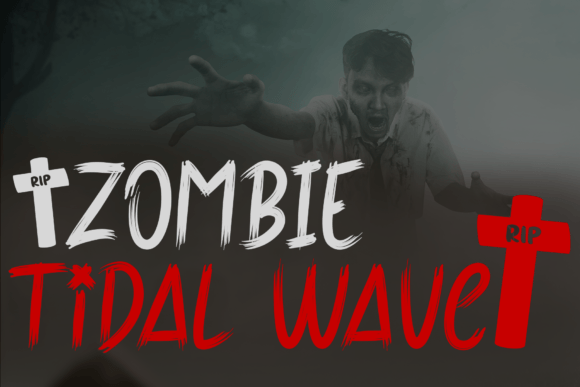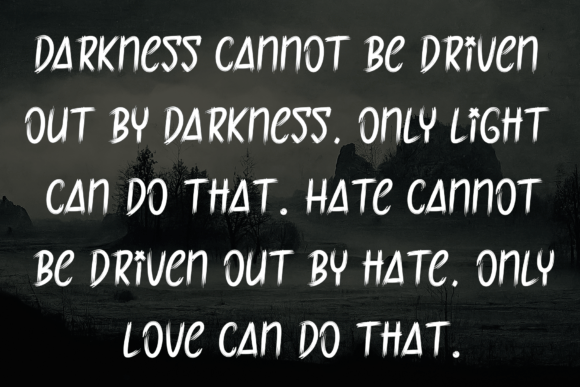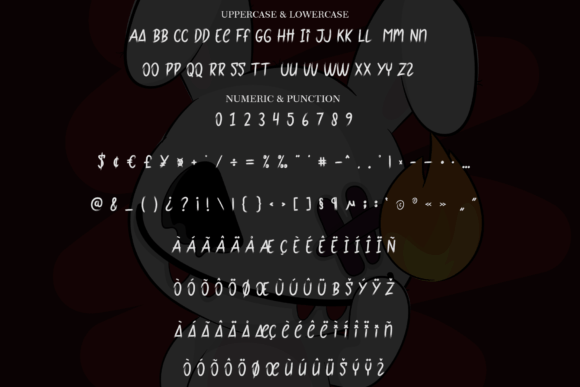
The Birth of a Spine-Chilling Font: Death Rabbit Font
As a designer, I’ve had my fair share of late nights spent scrolling through font libraries, searching for that perfect typeface to bring a project to life. But one fateful evening, while working on a Halloween-themed design for a client, I stumbled upon a font that sent shivers down my spine – Death Rabbit Font. This chilling script font has since become my go-to for horror-inspired designs, gothic invitations, and eerie projects.
Unleashing the Macabre: First Impressions
Death Rabbit Font is a masterclass in embracing the darker side of design. Its twisted strokes and haunting curves evoke a sense of whimsical terror that’s perfect for the spookiest of seasons. Whether you’re creating a haunting logo, a creepy invitation, or a eerie poster, this font adds an unmistakable eerie touch to your creations.
An Honest Review: The Good and the Quirky
So, what makes Death Rabbit Font so special? Here are a few things I love about it:
- ✨ Unique character set: Each letter has a distinct, hand-crafted feel that sets it apart from more generic fonts.
- ✅ Excellent for horror-themed designs: The twisted strokes and haunting curves are perfect for creating eerie and unsettling designs.
- 💀 Gothic and whimsical: Death Rabbit Font strikes a perfect balance between dark and playful.
Of course, no font is perfect. Here are a few quirks to keep in mind:
- 🤔 Limited use outside of horror themes: While Death Rabbit Font is amazing for Halloween-themed designs, it might not be the best fit for more lighthearted projects.
- ⚠️ Some letters may require manual kerning: As with many script fonts, you might need to adjust the kerning to get the perfect spacing.
The Story Behind Death Rabbit Font
Legend has it that Death Rabbit Font was inspired by the macabre art of 19th-century illustrators. The font’s creator, a mysterious designer with a passion for the dark and unknown, poured their heart and soul into crafting a typeface that would evoke the eerie and whimsical. The result is a font that’s equal parts haunting and beautiful.
| What makes Death Rabbit Font so unique? | Its hand-crafted, twisted strokes and haunting curves give it a one-of-a-kind feel. |